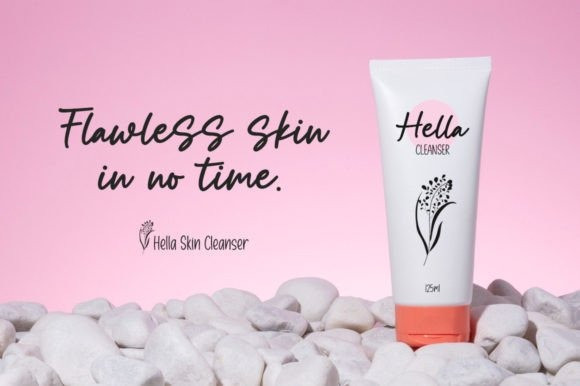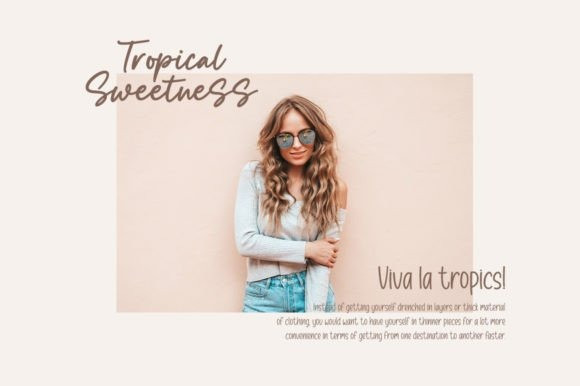
Beauty Style Font
Beauty Style is a lovely duo font featuring a sans serif and an elegant and flowing handwritten font. It has beautiful and well-balanced characters, and as a result, it matches a wide pool of designs.